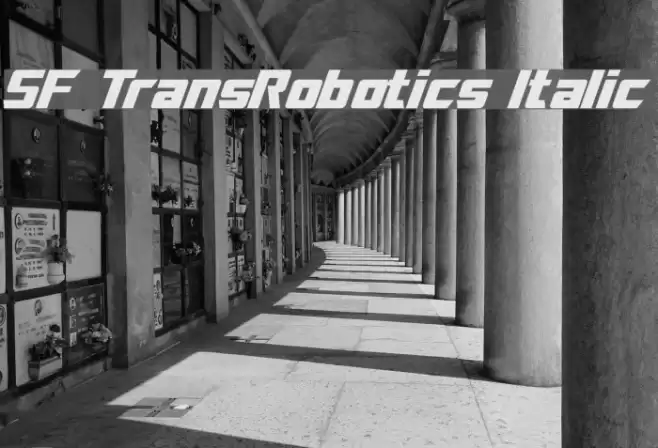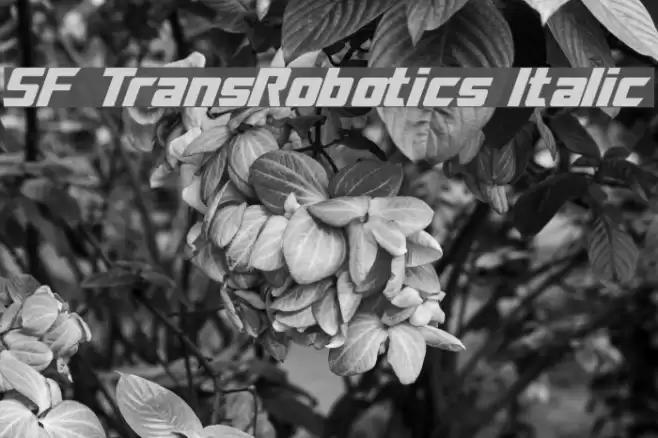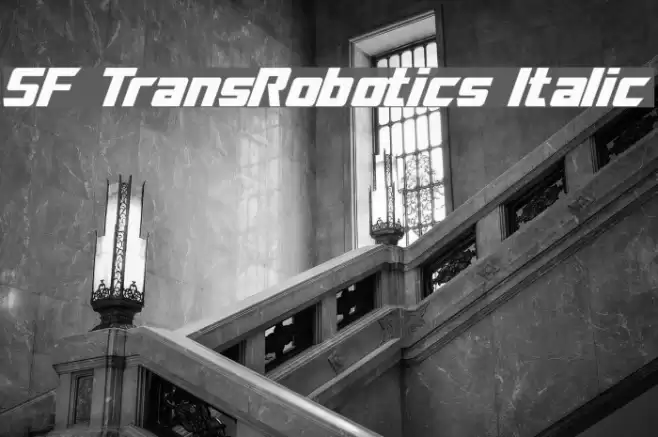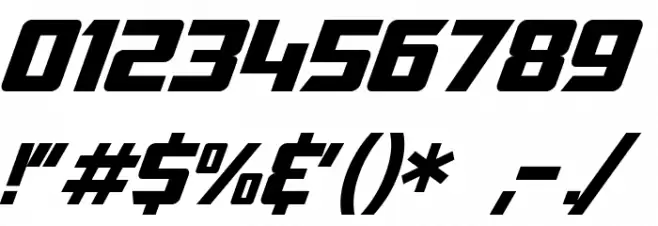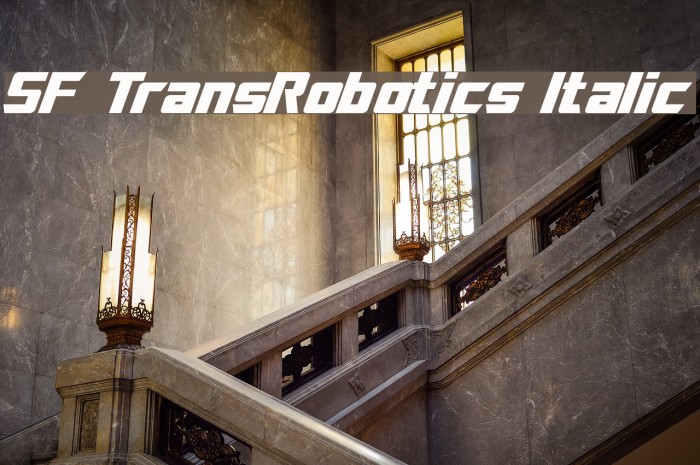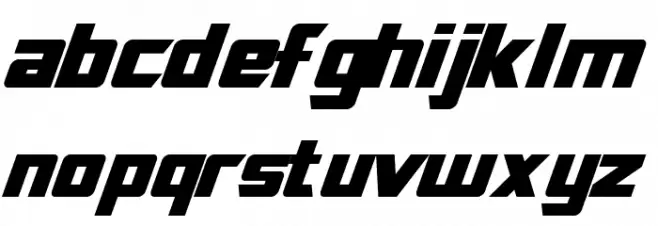
SF TransRobotics Italic Font
SF TransRobotics Italic Description
This font features a futuristic and angular design with a strong italic slant, giving it a dynamic and forward-moving appearance. The characters are bold and geometric, with sharp edges and a consistent stroke width that conveys a sense of precision and modernity. The uppercase and lowercase letters maintain a cohesive style, while the numerals and special characters complement the overall aesthetic. The font's design is reminiscent of technology and robotics, making it suitable for projects that require a modern and innovative look.
A futuristic, bold italic font with angular, geometric shapes from Famous fonts.
- Proposed Projects: Ideal for technology branding, sci-fi movie posters, video game titles, and futuristic product packaging.